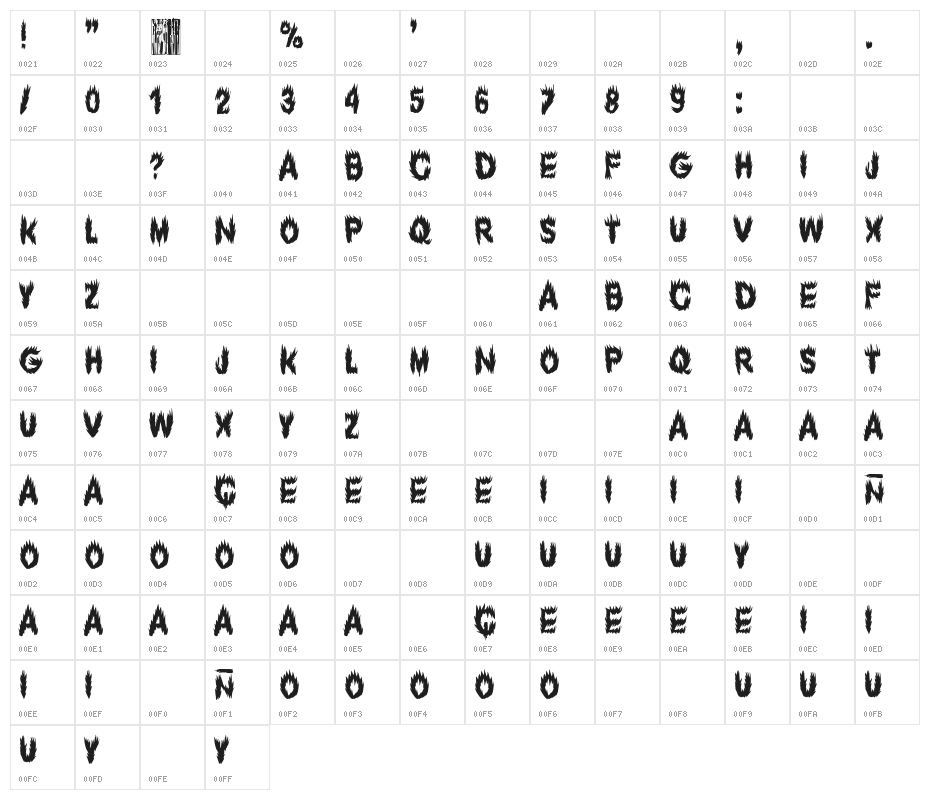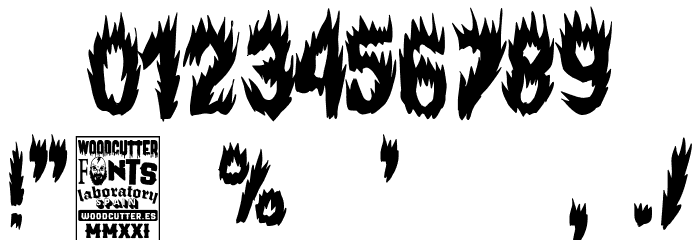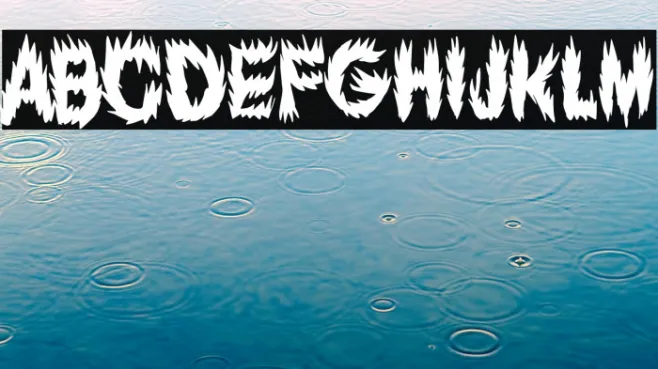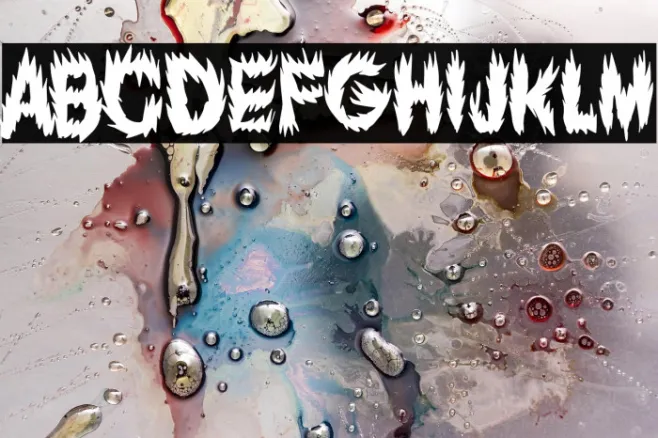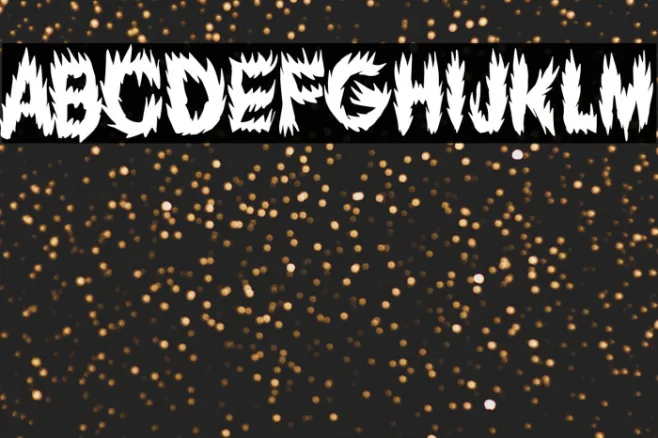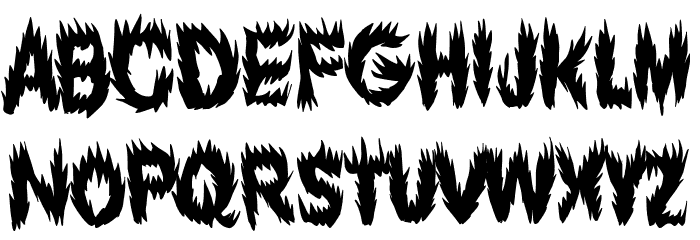
Parnaso Sound Font
Parnaso Sound Description
This font features a bold and jagged design, reminiscent of sharp, serrated edges or a wild, untamed aesthetic. Each character is crafted with a dynamic and energetic style, giving the impression of movement and intensity. The uppercase and lowercase letters maintain a consistent theme, with exaggerated spikes and irregular contours that create a visually striking appearance. Numbers and special characters follow the same design principles, ensuring a cohesive look across all elements. This font is ideal for projects that require a dramatic and eye-catching typeface.
| Proposed Projects | Perfect for horror-themed posters, edgy branding, music album covers, and Halloween event promotions. |